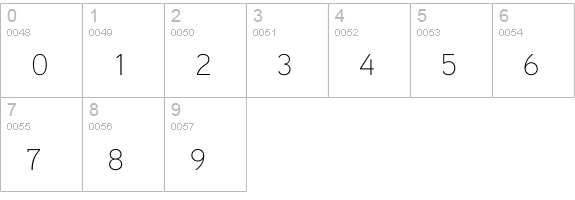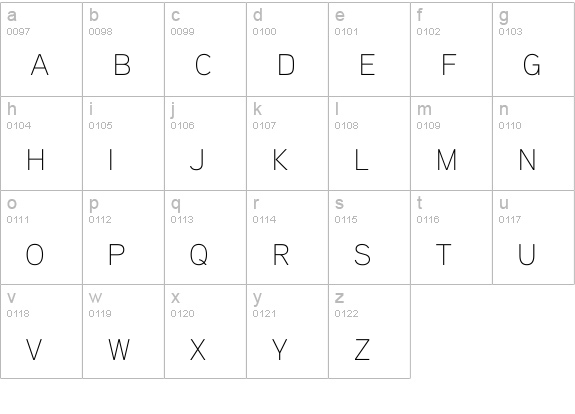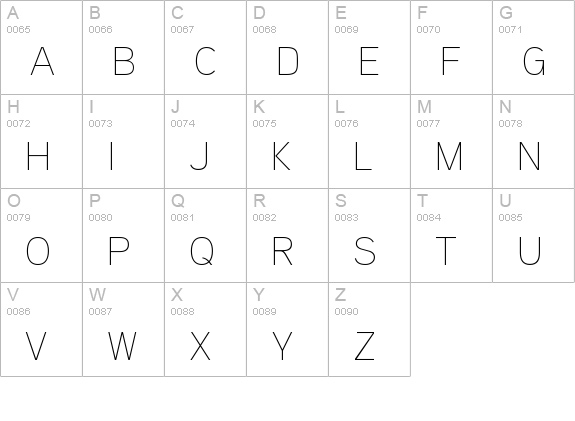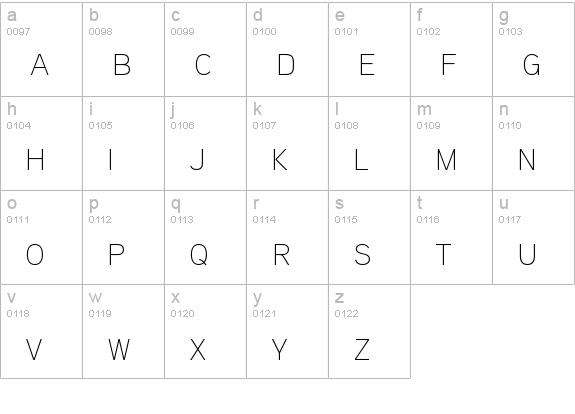
Aaux ProThin SC Font Details
Aaux ProThin SC font is a sleek and sophisticated typeface that exudes elegance and modernity. Its ultra-thin strokes and clean lines give it a refined and minimalistic look, making it perfect for minimalist designs and high-end branding projects. The font's condensed style adds a touch of sophistication and allows for efficient use of space in layouts. What sets Aaux ProThin SC font apart is its versatility and readability, making it suitable for a wide range of design applications, from editorial design to web design and everything in between. Whether you're creating a sleek website, a stylish magazine layout, or a sophisticated logo, this font is sure to make a statement. The best part? Aaux ProThin SC font is available for free download at FontsMarket.com. This means you can easily access this premium font without breaking the bank, making it a valuable addition to your font library. Don't miss out on the opportunity to elevate your designs with the timeless elegance of Aaux ProThin SC font.